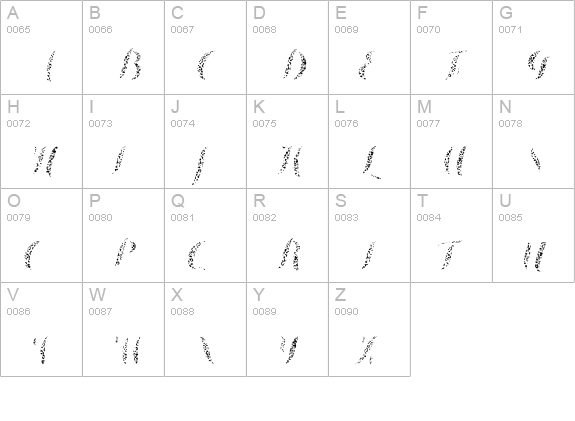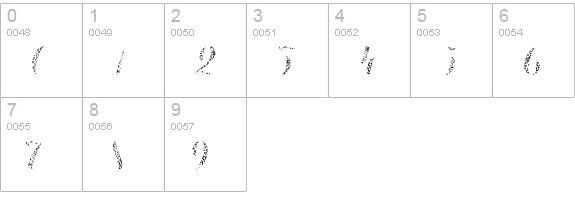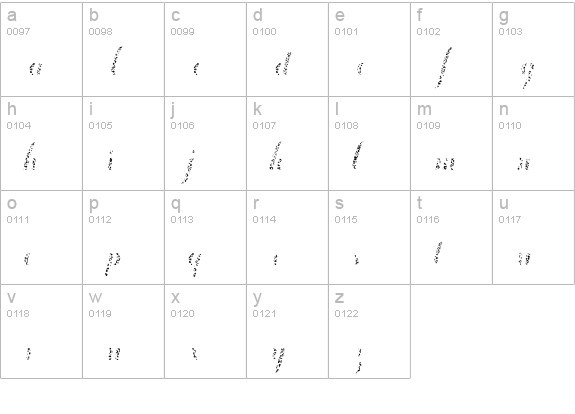
Chameleon Fill Skin2 font is a unique and eye-catching typeface that will make your designs stand out. With its intricate details and modern aesthetic, this font is perfect for projects that require a touch of sophistication and elegance. The Chameleon Fill Skin2 font is freely available to download at FontsMarket.com, making it easily accessible for all your design needs. Add a touch of creativity to your work with this stunning font and watch your designs come to life.